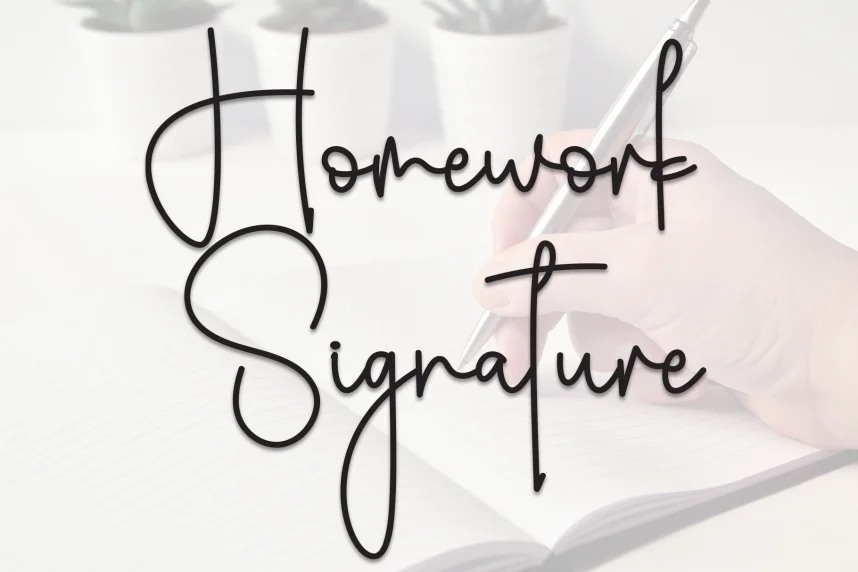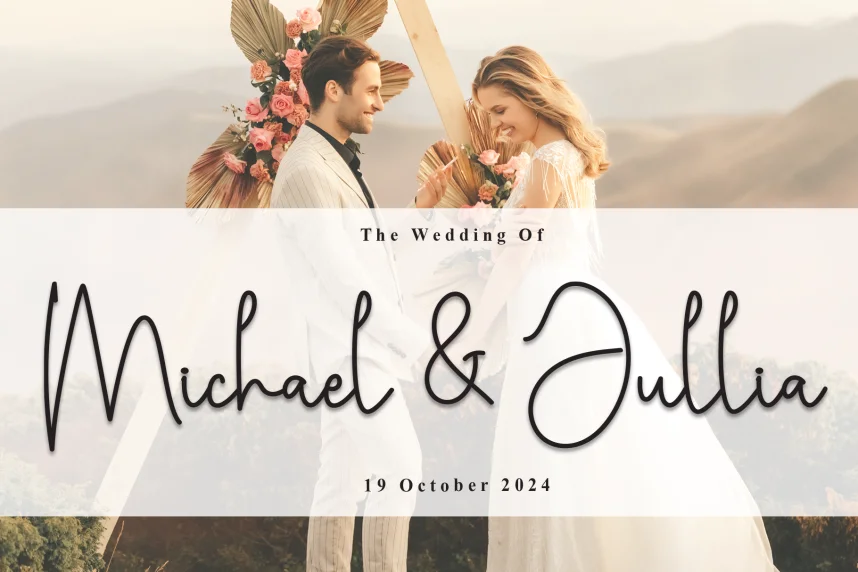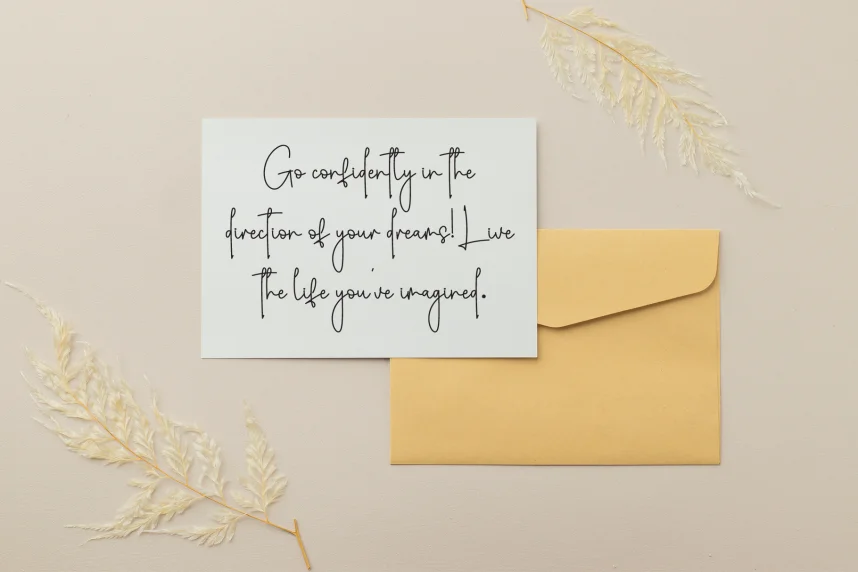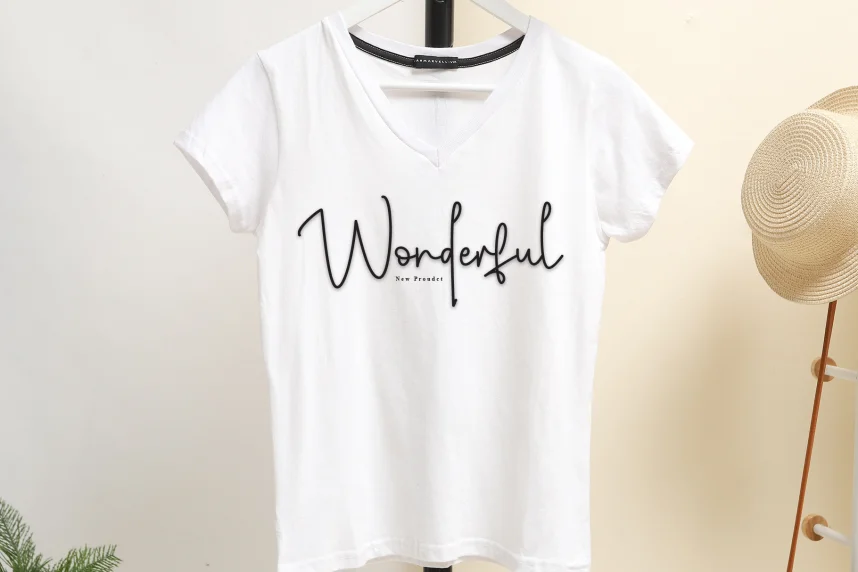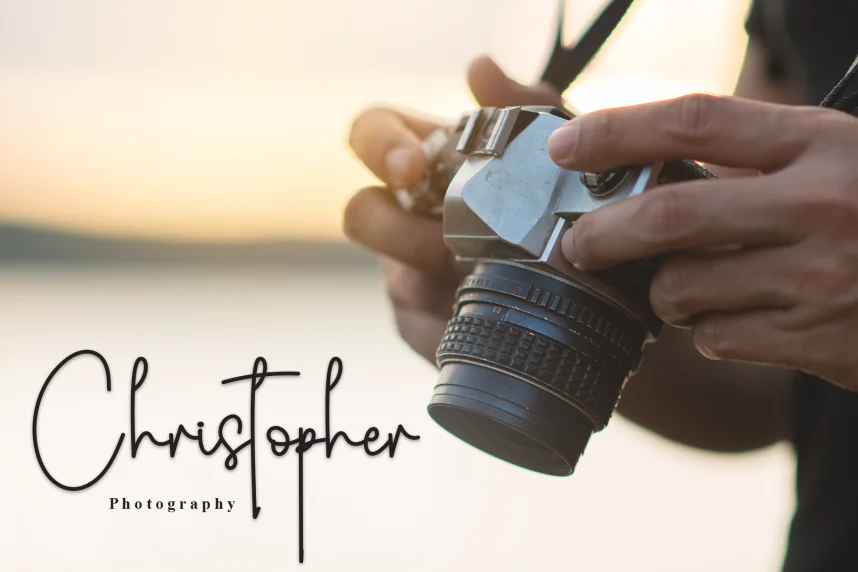
Homework Signature Simple Handwritten Font solves the problem of adding a personal, handwritten style to designs without overwhelming readability. It’s perfect for projects that require a casual, handwritten feel without too much flourish.
Homework Signature is a handwritten script font with clear, rounded strokes and consistent spacing. Its informal design adds personality while ensuring the text remains legible in both digital and print formats.